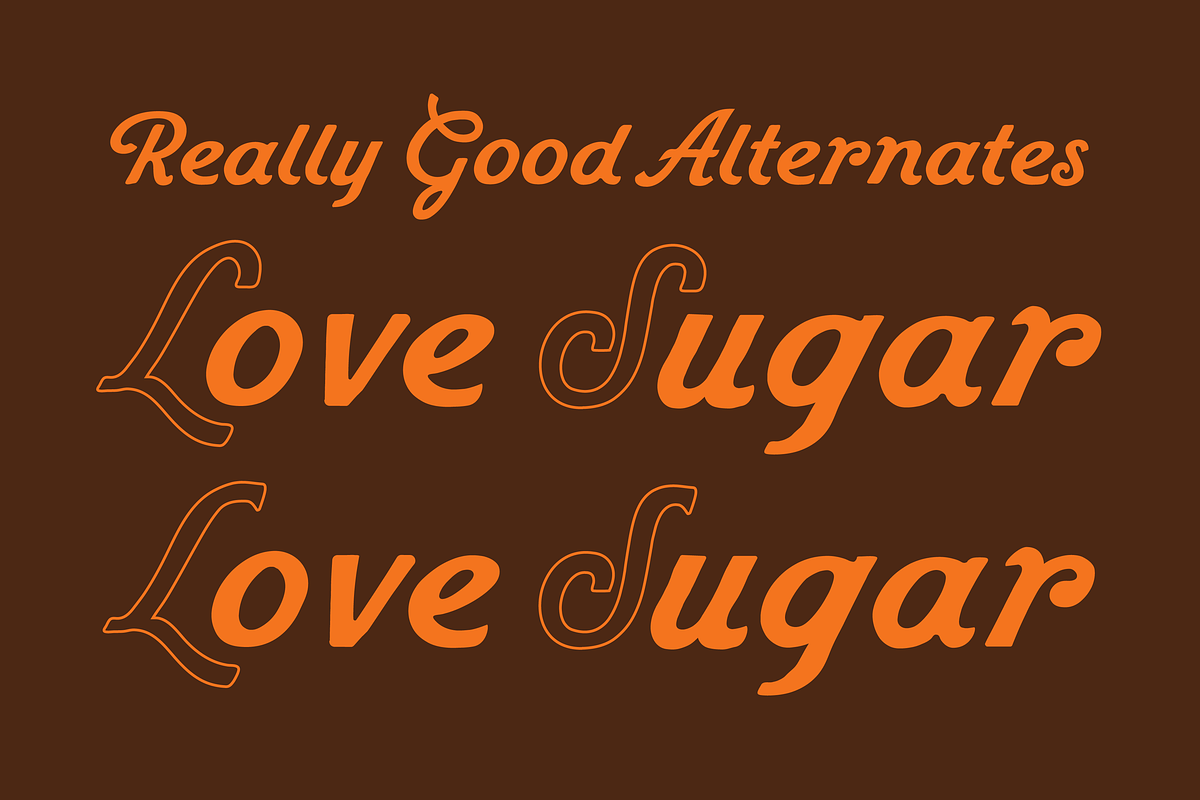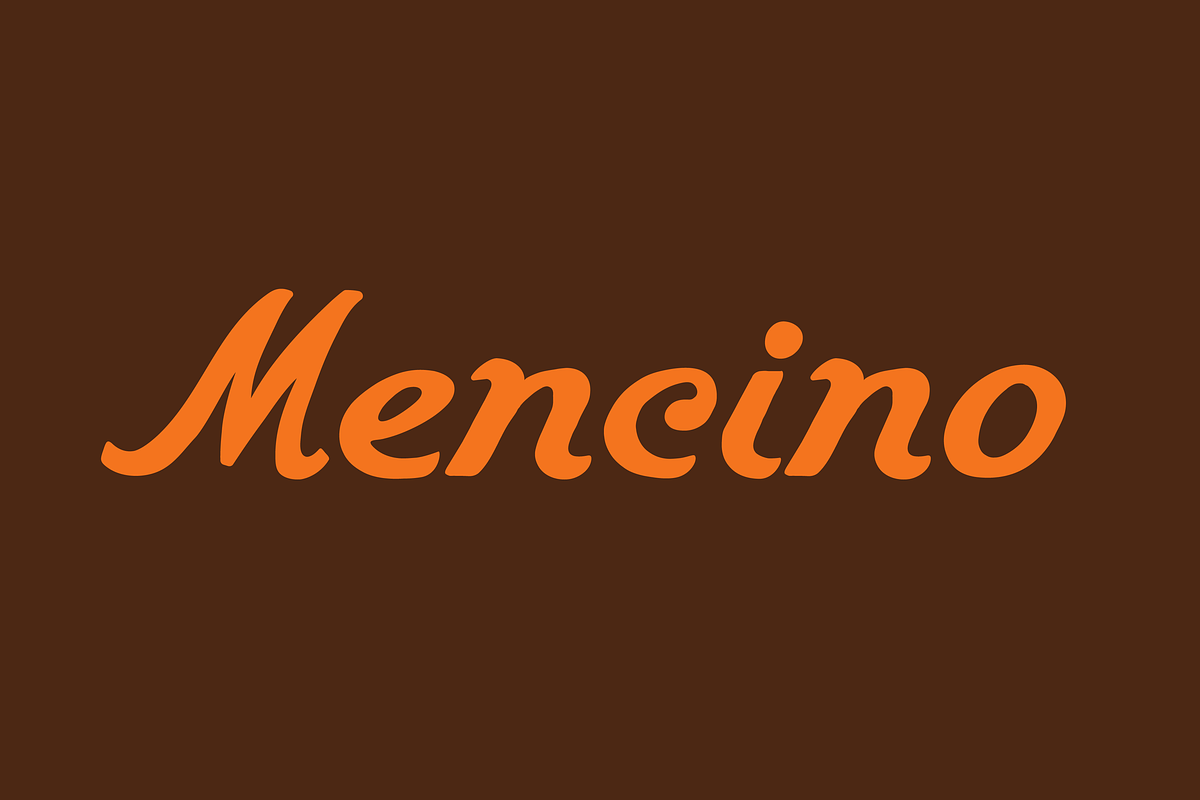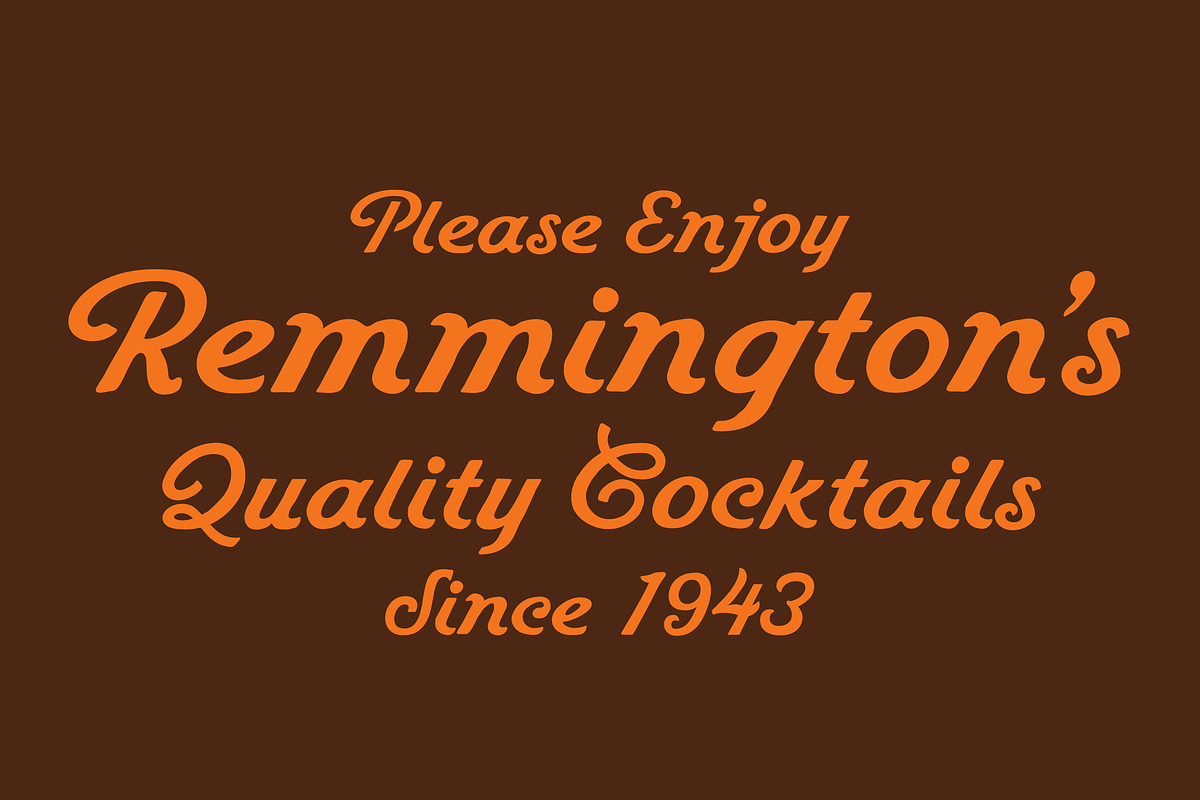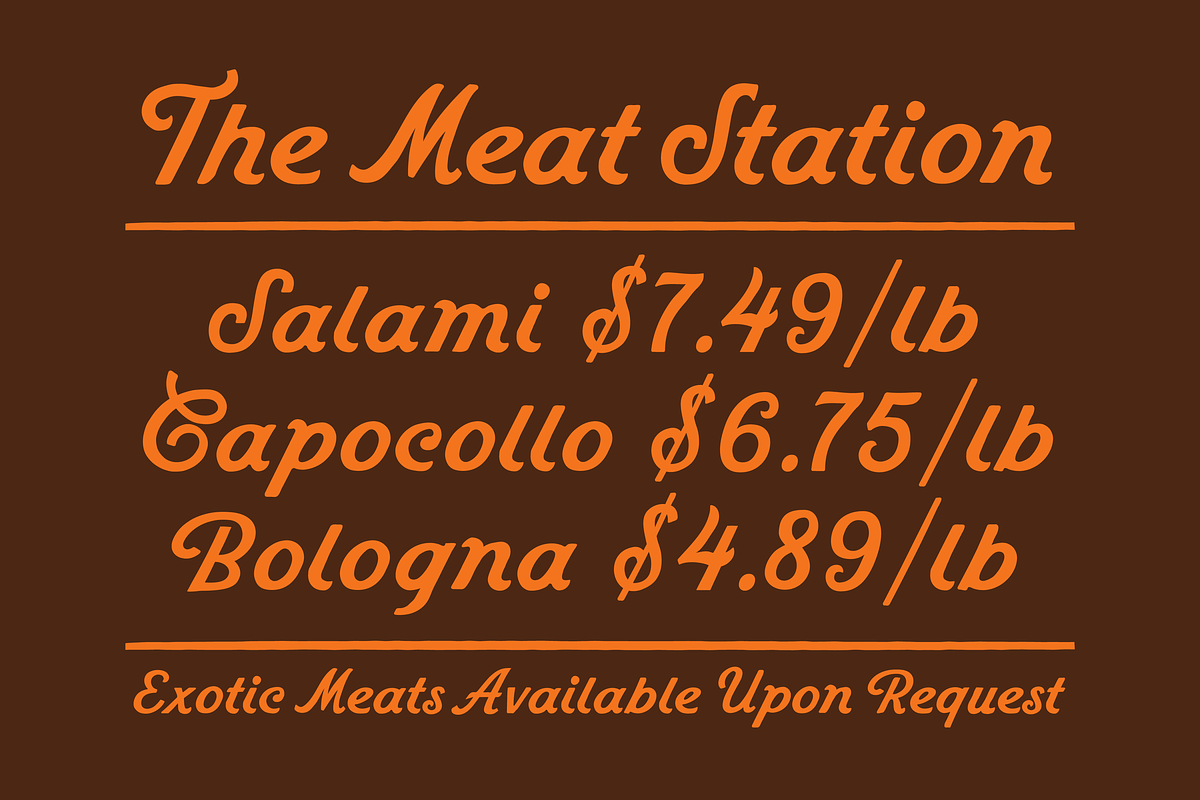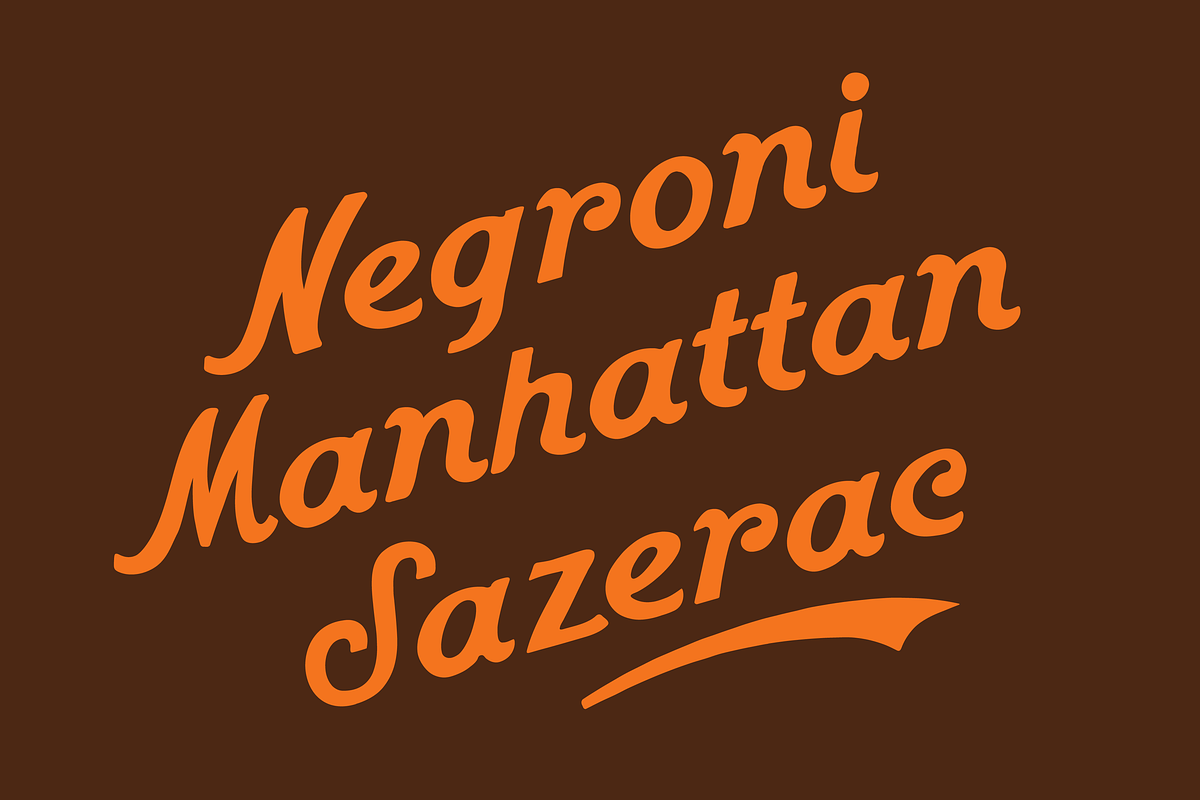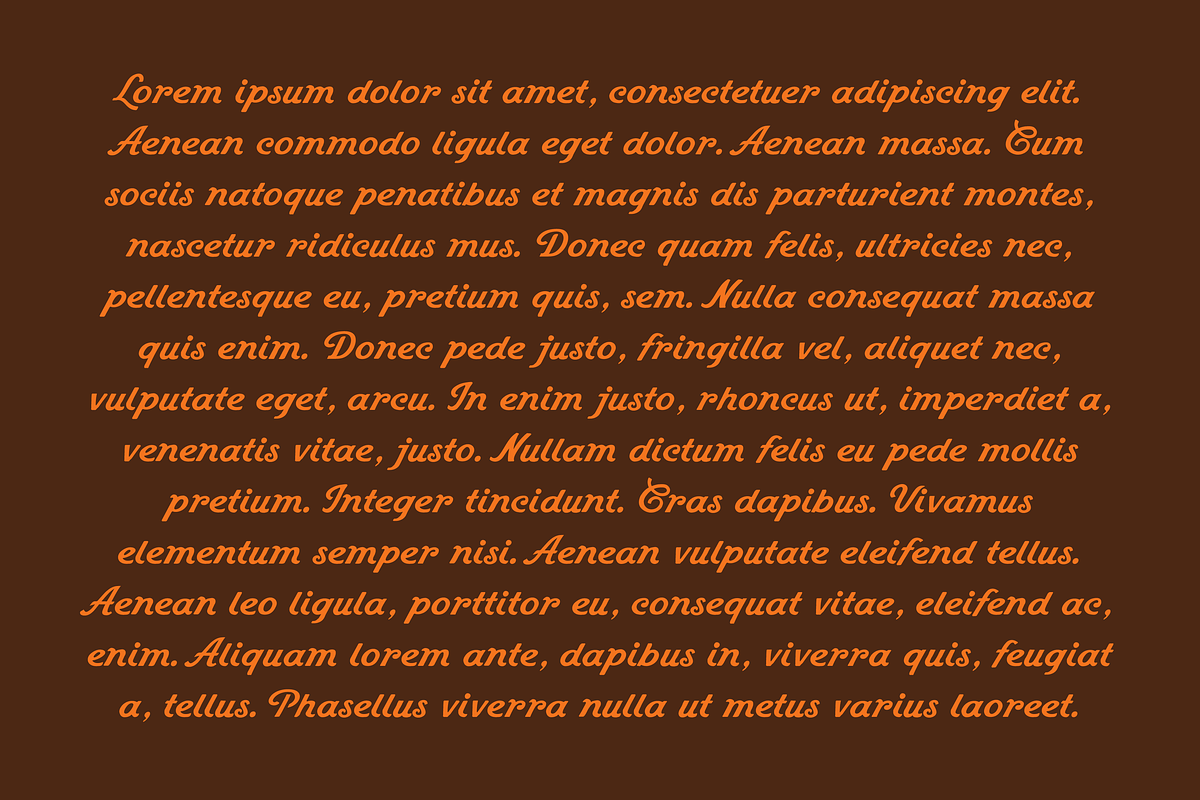
Mencino
Mencino is a non-connective script font inspired by vintage hand-painted signage. With its organic, hand-drawn character, it brings warmth and personality to any design. Complete with numerals, punctuation, and alternates, Mencino is a flexible typeface that adapts easily to projects in need of an authentic, handcrafted touch.